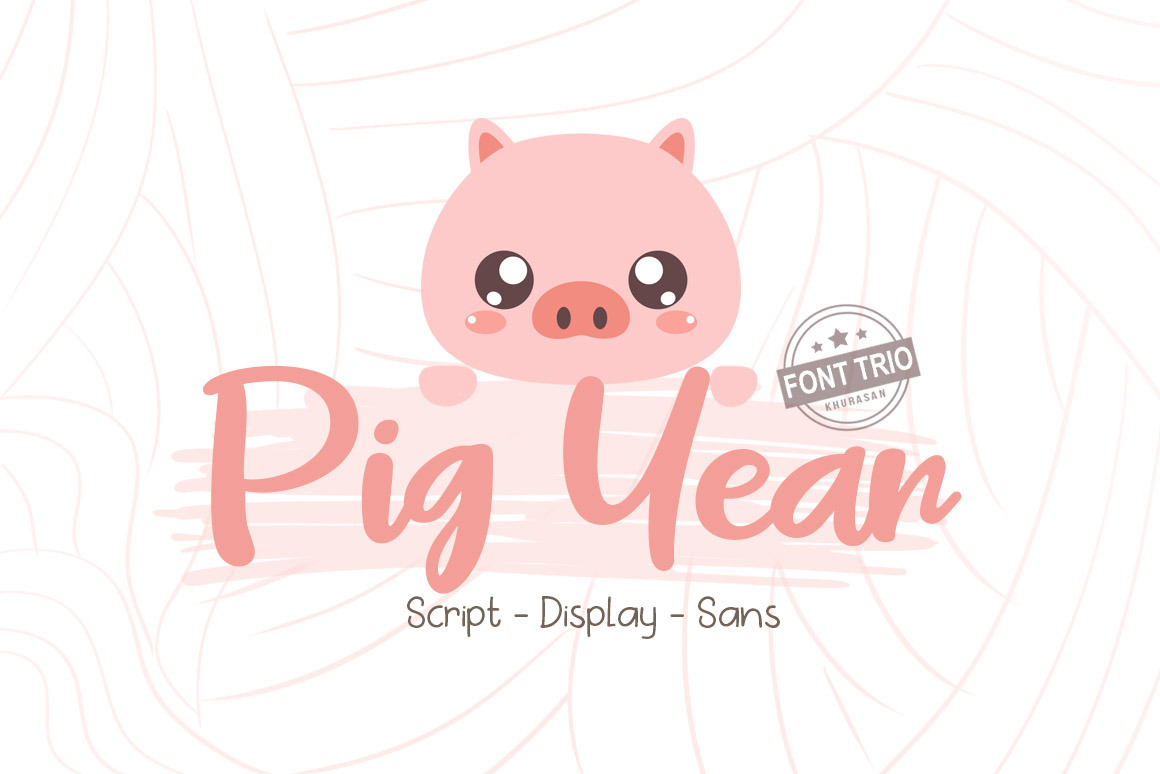
Pig Year 3 Font
Introducing, The Pig Year Font is a fun typeface, fresh & modern style with three different style, script, display & sans . You can combine three different style to get amazing results. Pig Year Font suitable for logo, branding, greeting card, poster and any design that you create.